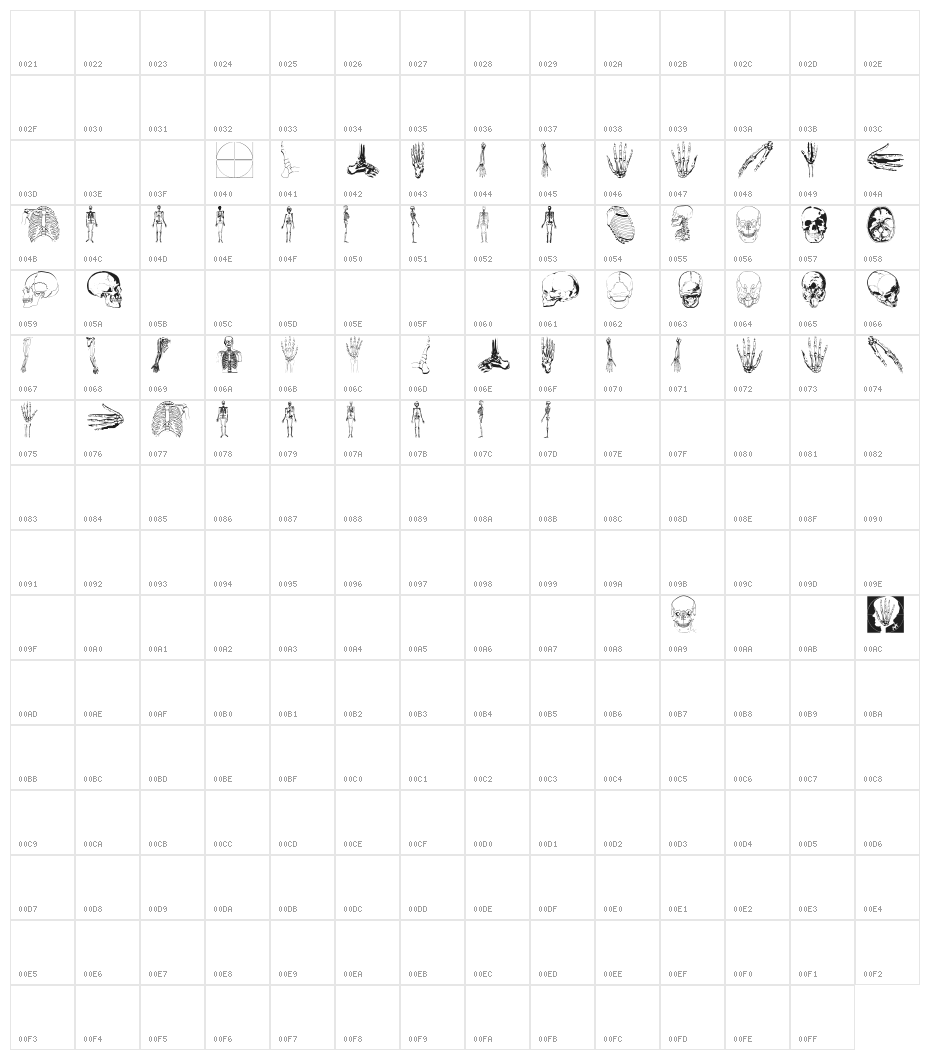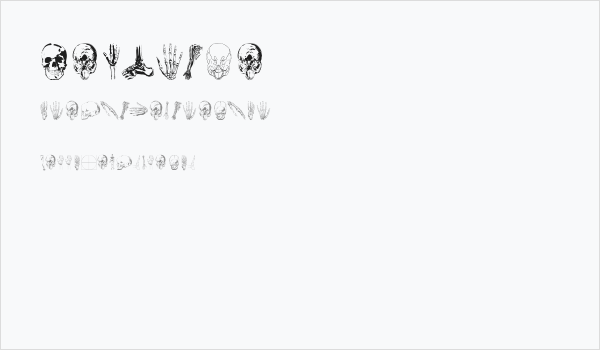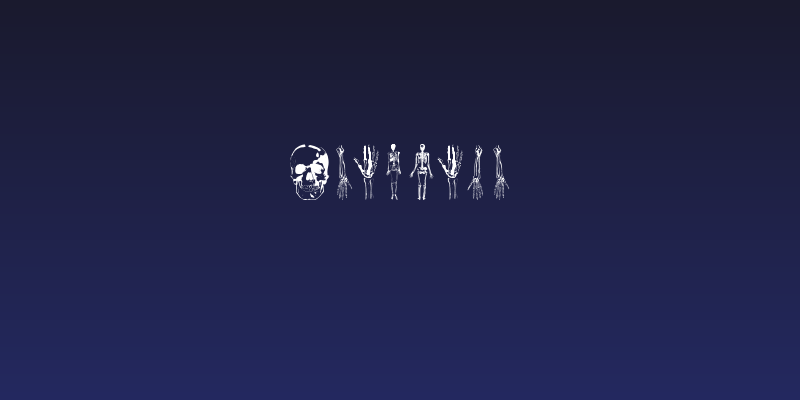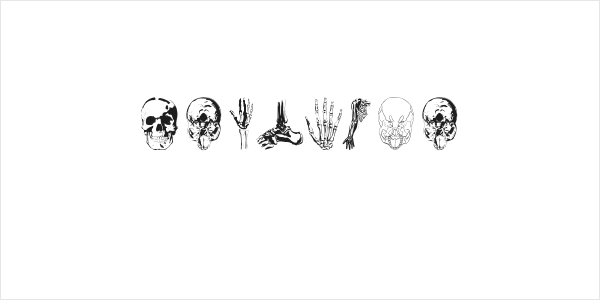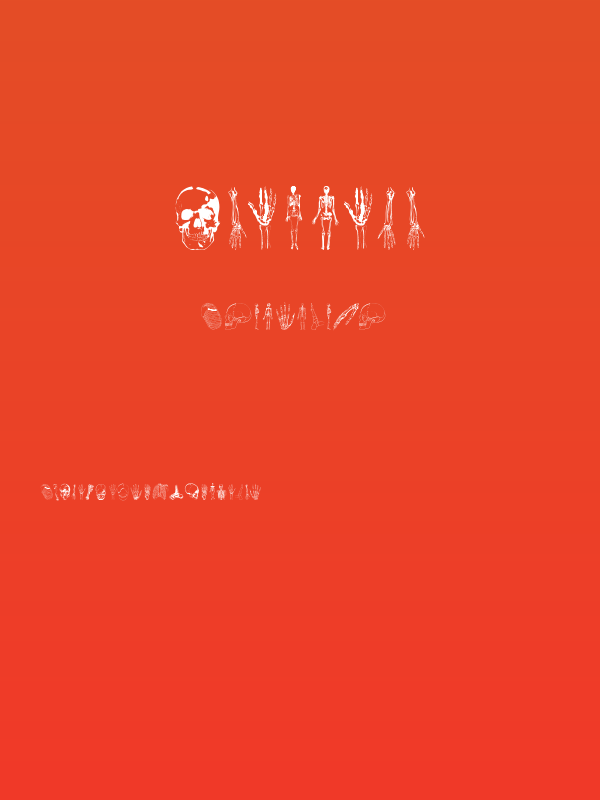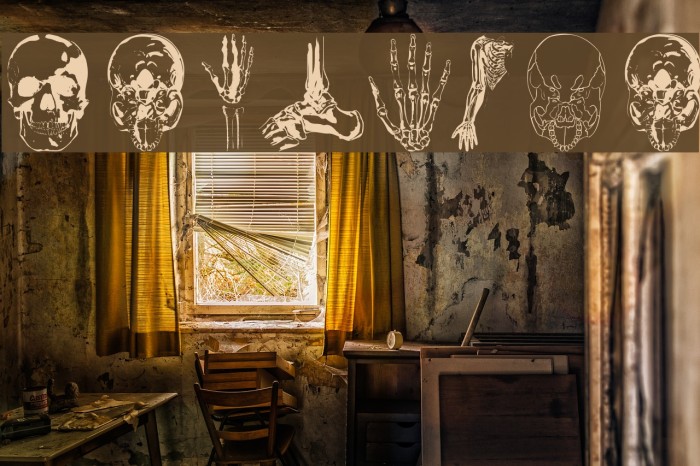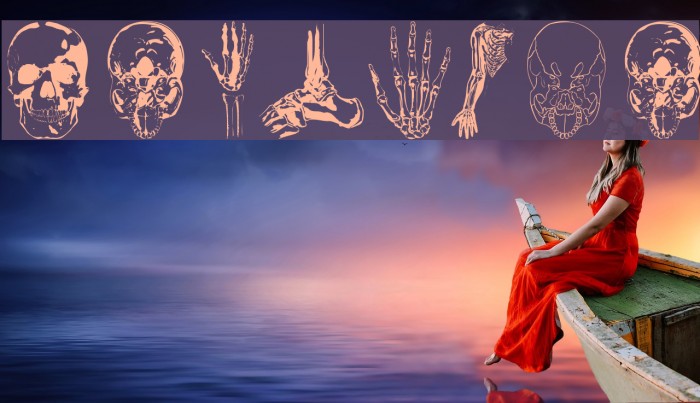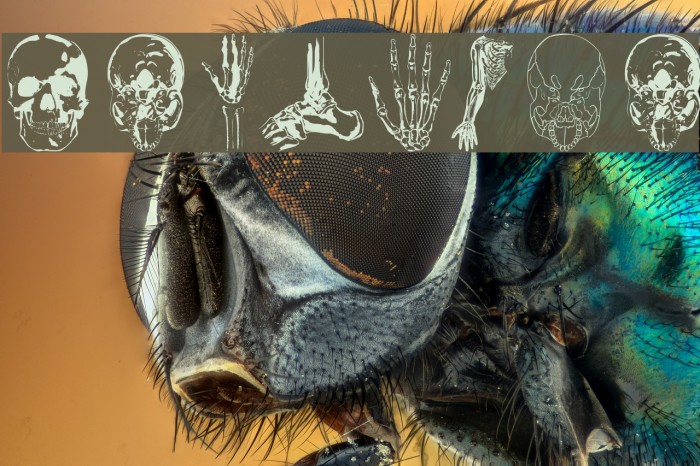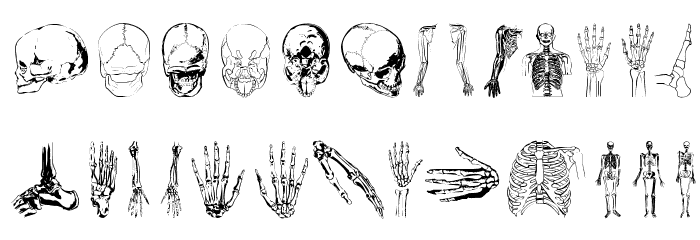
WeInside Font
WeInside Description
A highly detailed, decorative display font composed of anatomical illustrations such as bones, skulls, hands, feet, and full skeletons, rendered in a hand-drawn, sketch-like style with varying line thickness and intricate details.
| Overall Style | Decorative, Hand-drawn, Anatomical |
| Use Case | Headlines, Posters, Themed graphics, Logos |
| Proposed Projects | Halloween posters, medical or anatomy-themed graphics, educational materials, alternative music album covers, and unique branding for science or horror events. |